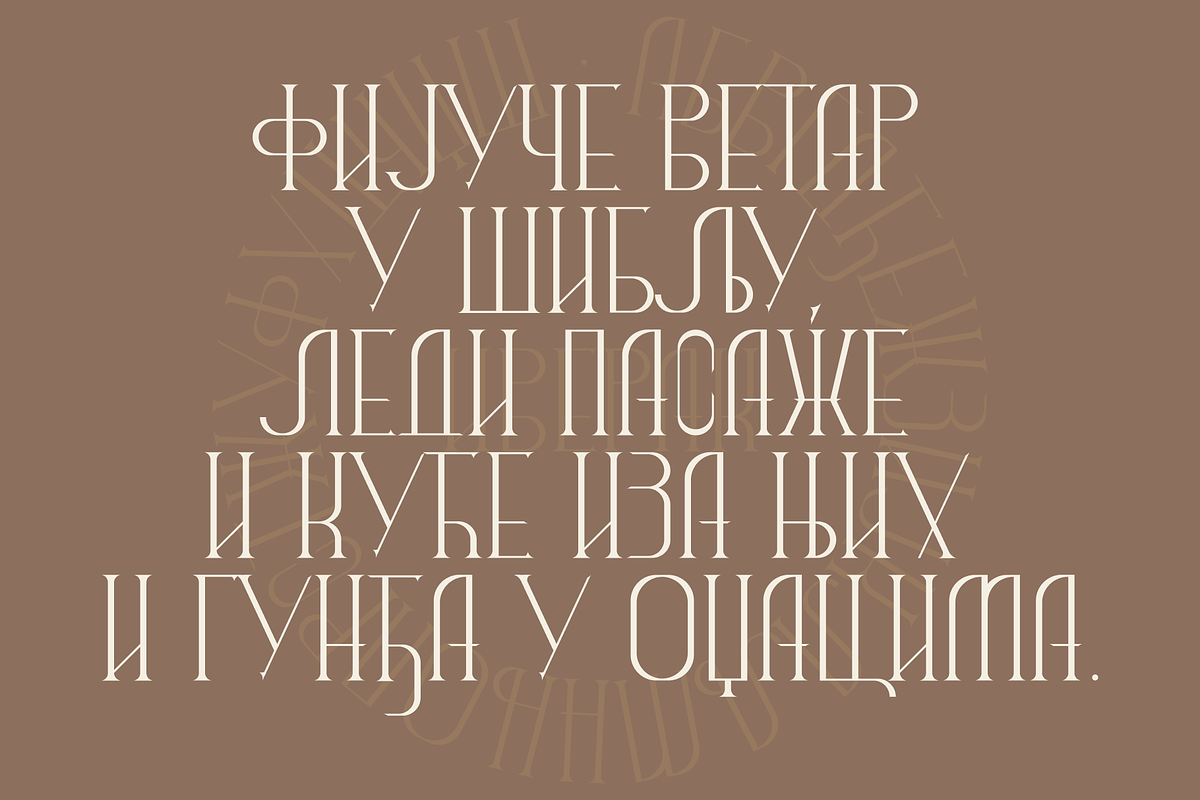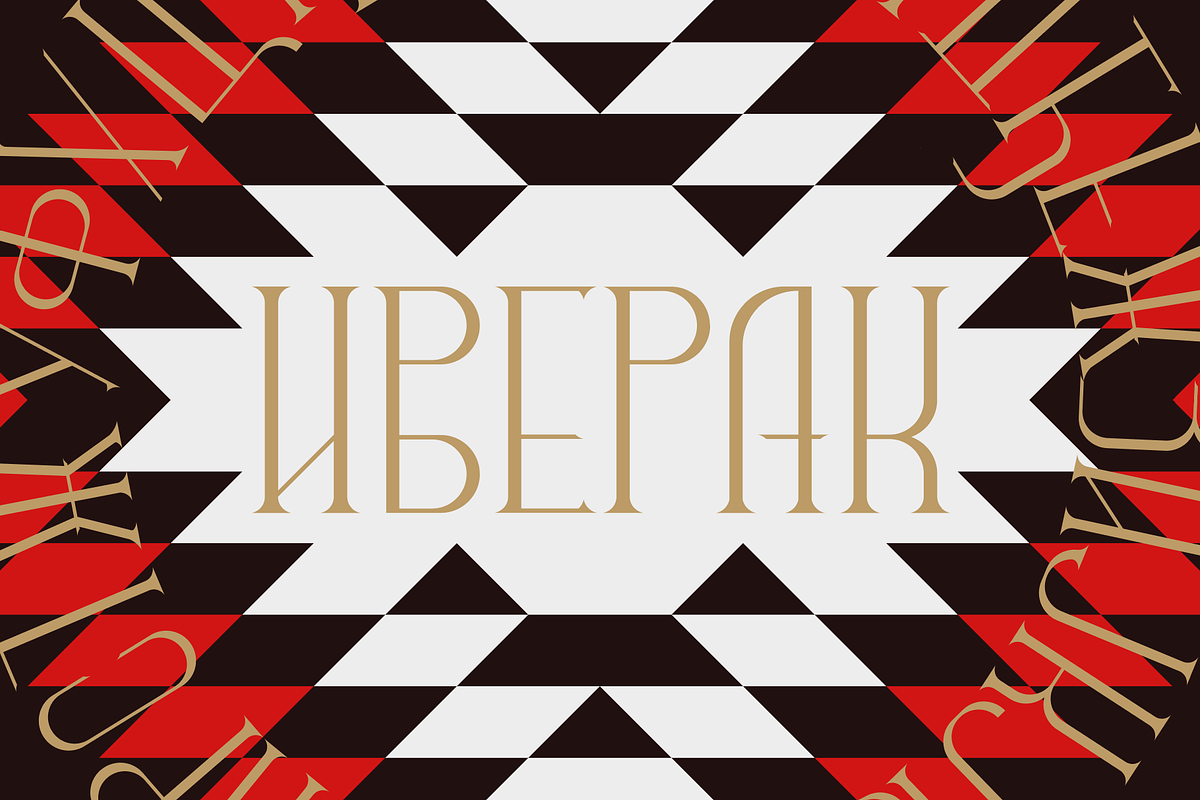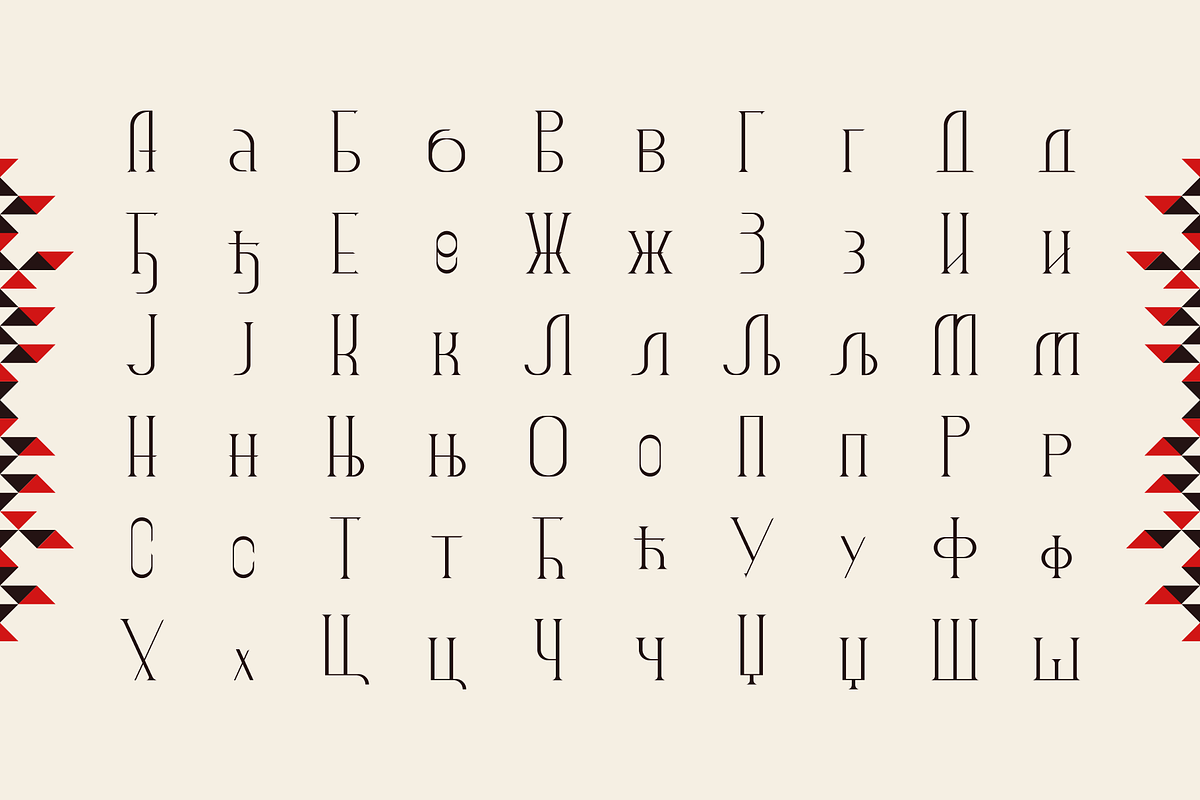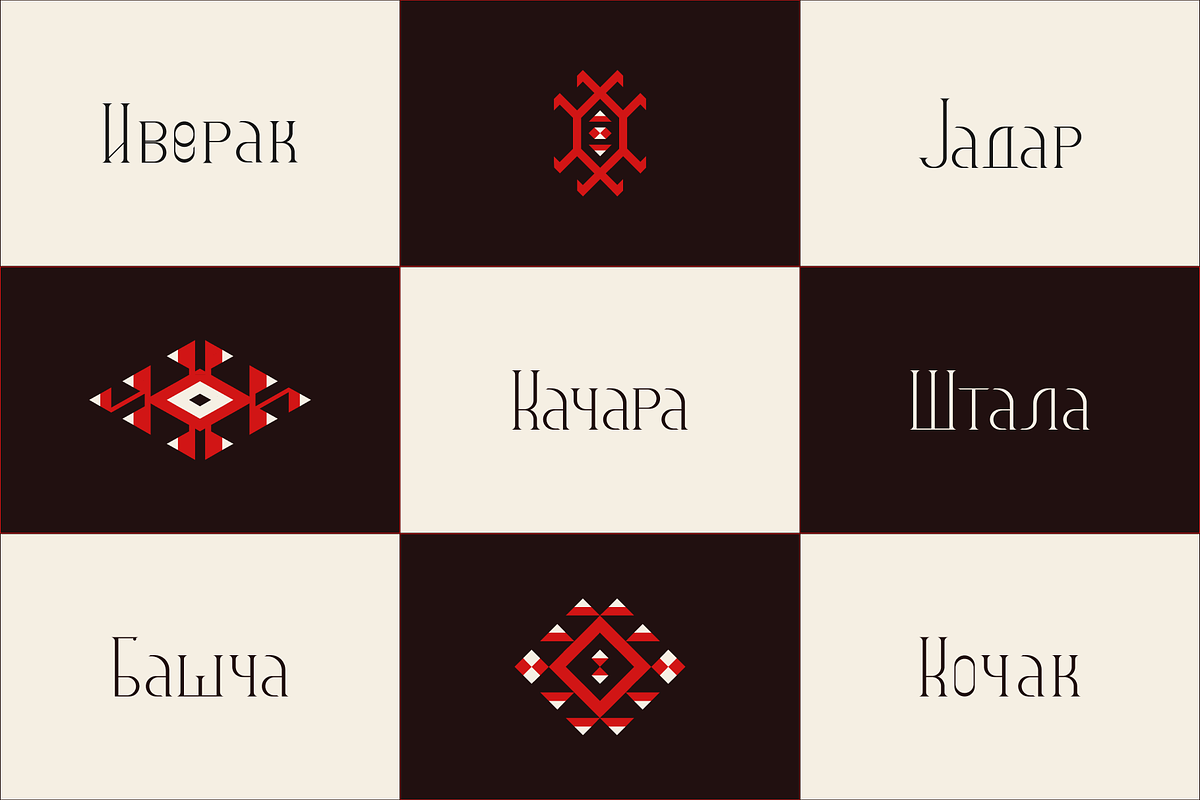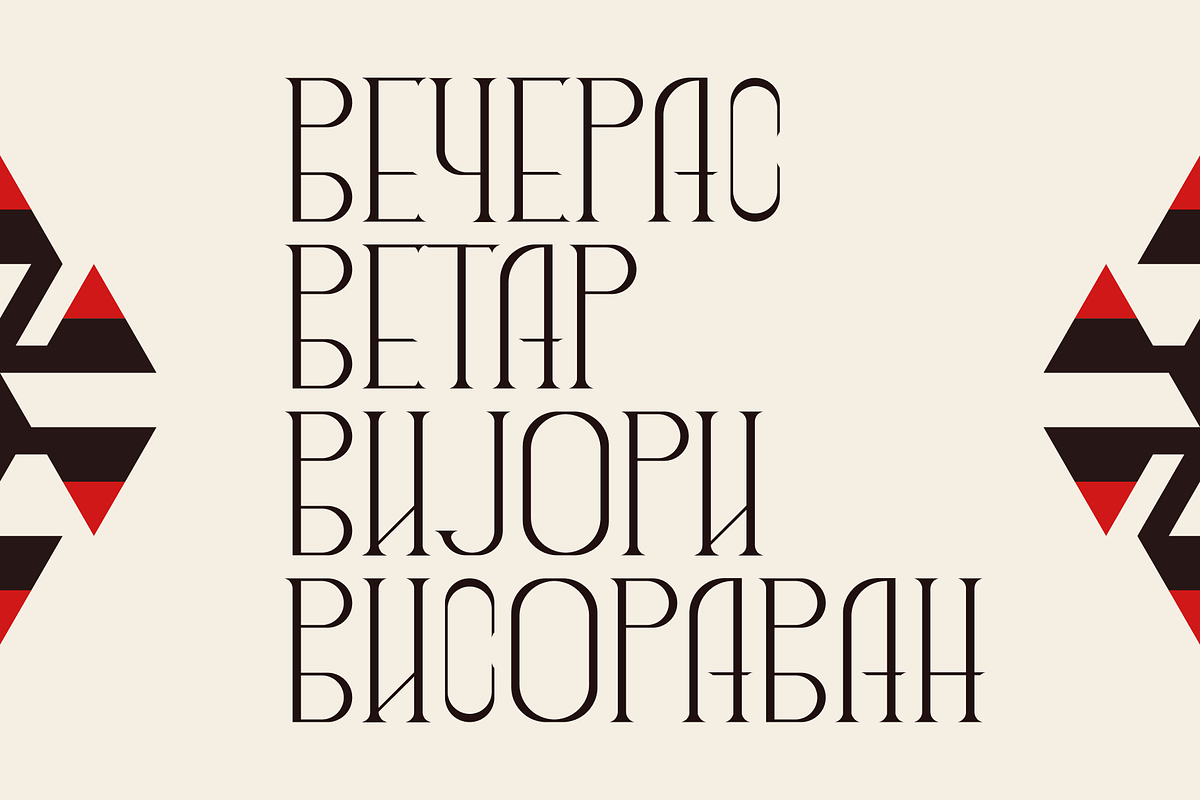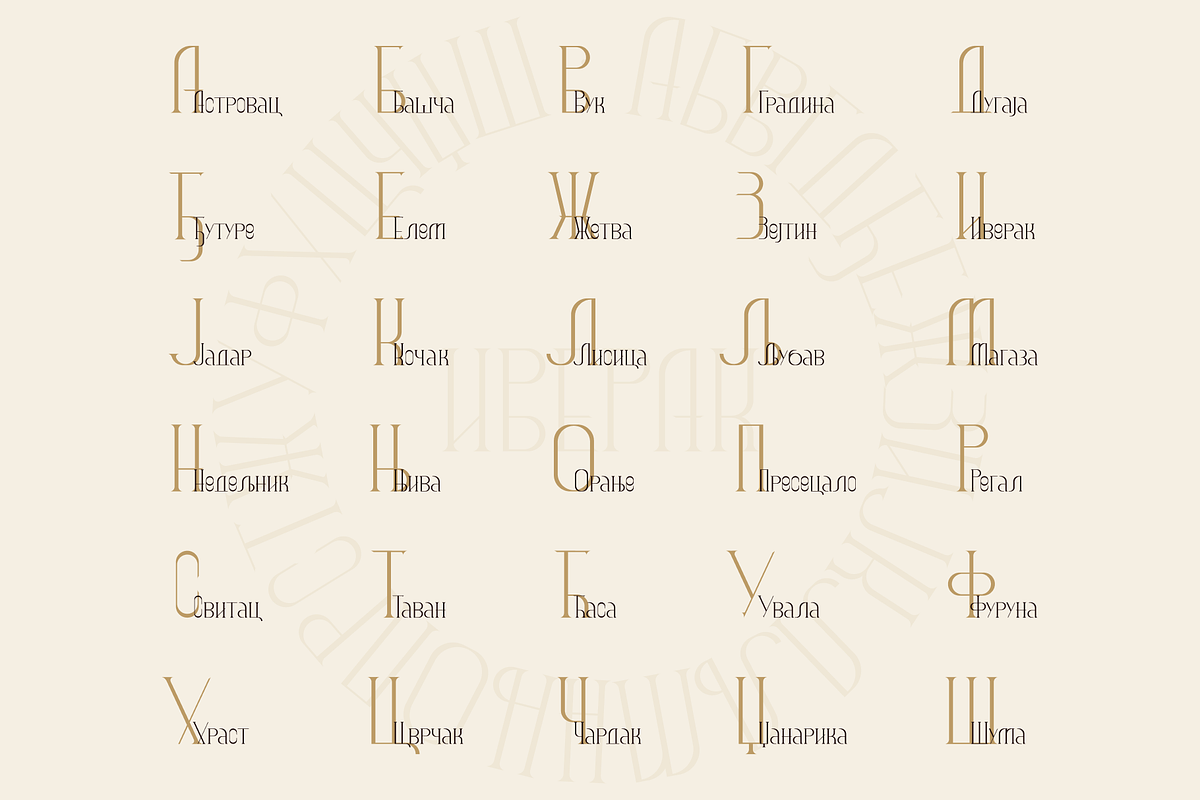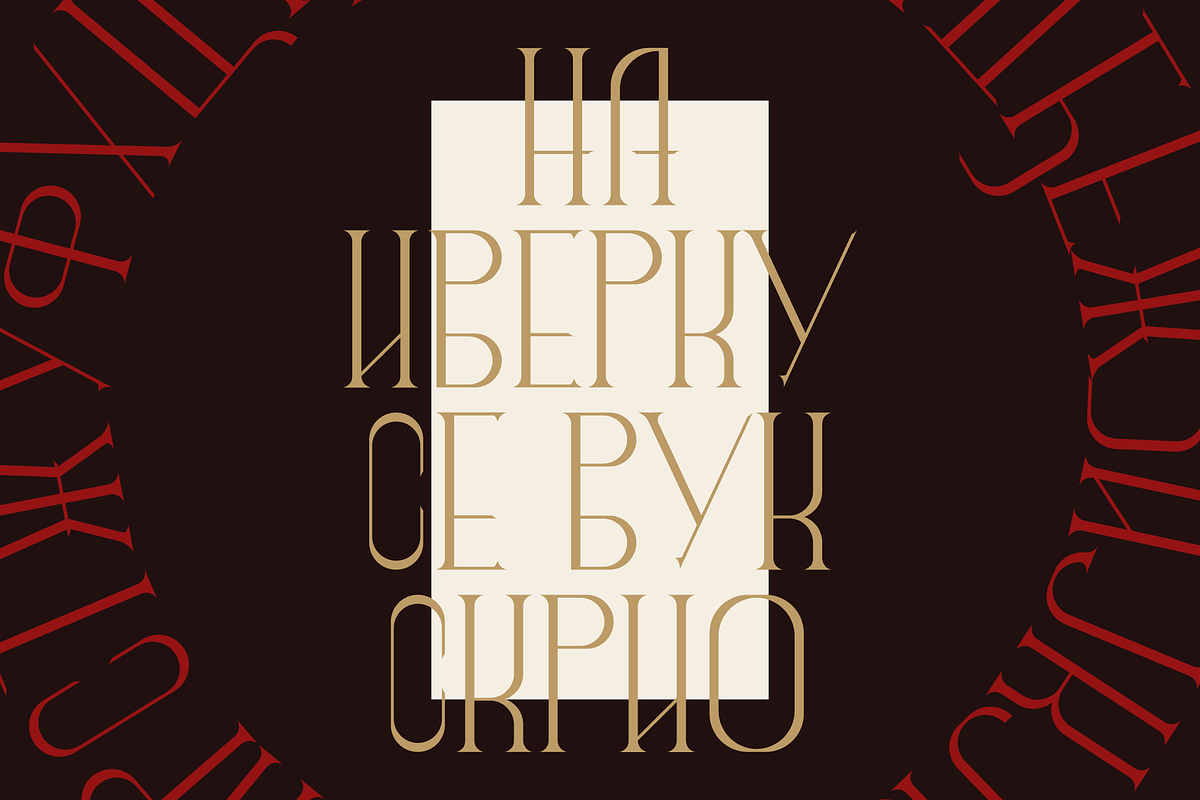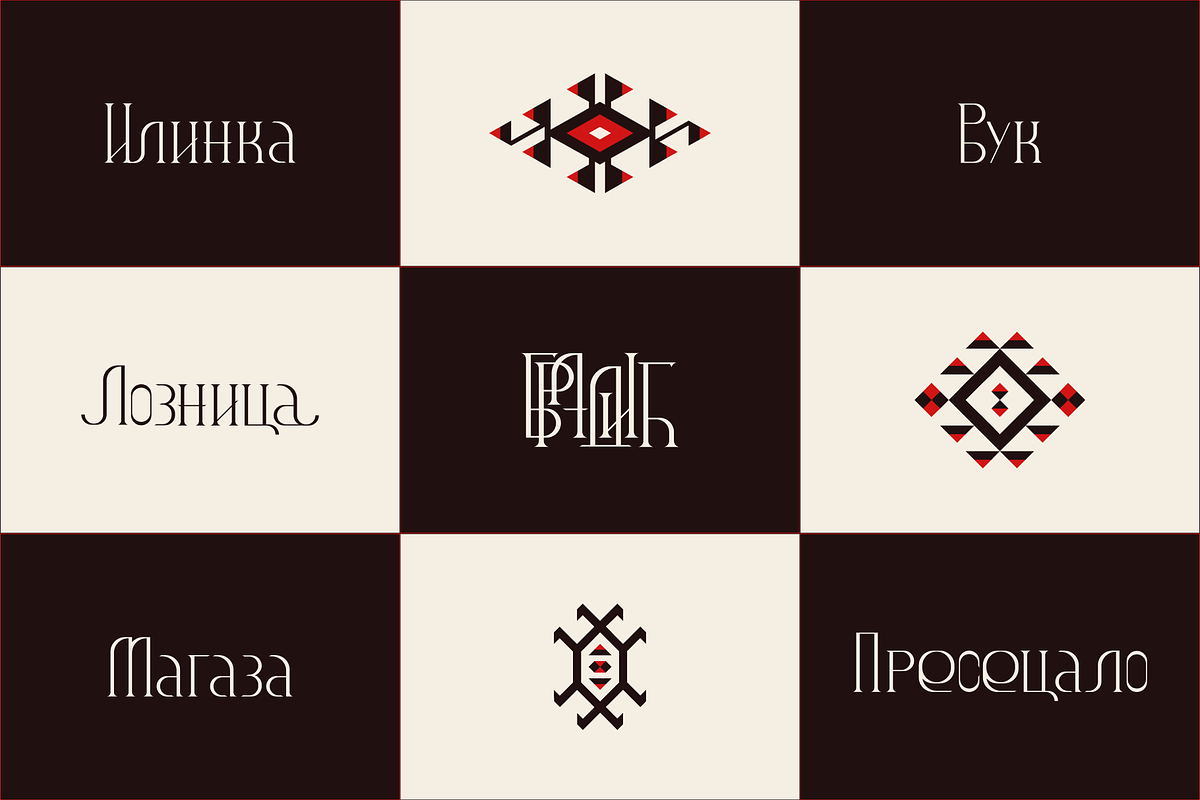
Iverak - traditional serbian font
Iverak is meticulously crafted typeface that pays homage to the rich heritage of rural life. This unique font is more than just letters, it's a bridge between tradition and modernity.
Iverak is the result of a painstaking creative journey, dedicated to capturing the essence of a quaint village nestled in the heart of tradition. And as it has helped shape this village in it’s digital presence, I hope it will benefit your project as well.
I must emphasize that my initial village branding has inspired a new project, where I was hired to incorporate this font and create graphics for a book that has found its way to the Library of Congress of the USA. I find this very special project even more valuable, knowing it is nestled in the halls of history.